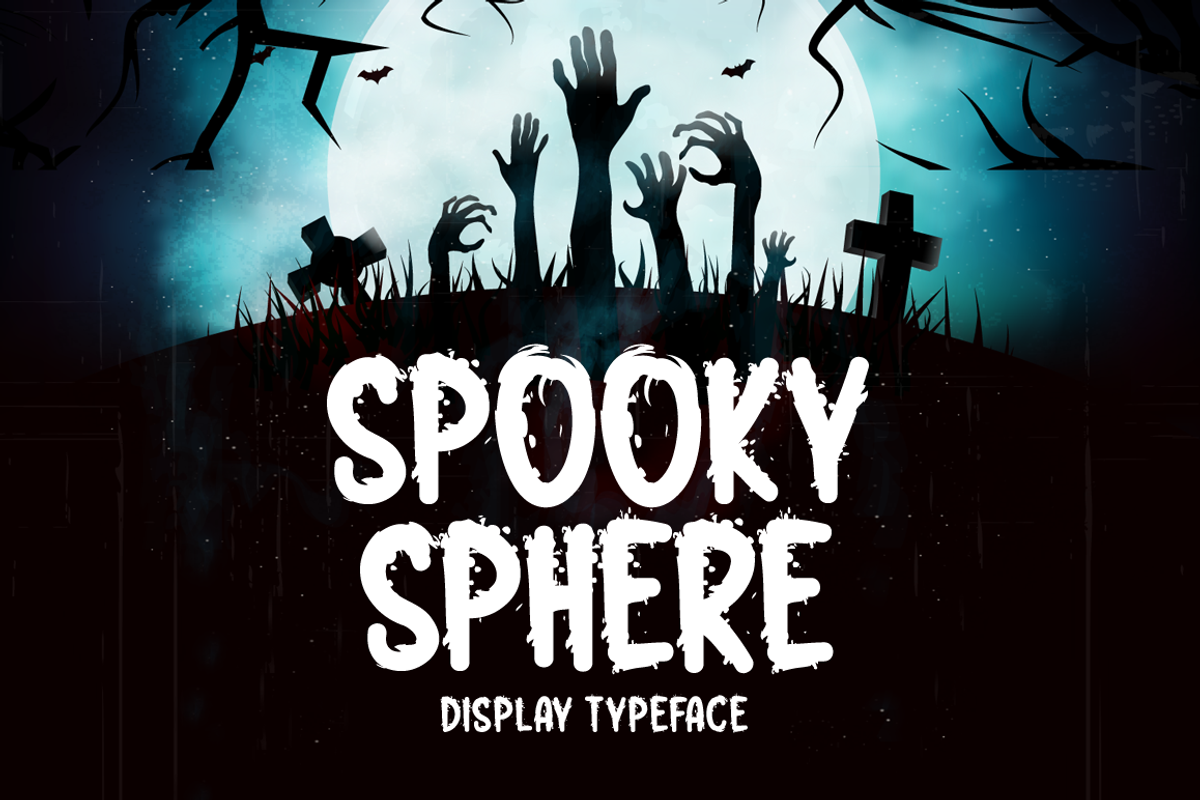
Spooky Sphere Typeface Free Download
The Spooky Sphere Typeface Free Download is a fun and playful font with a unique, round design that adds a whimsical touch to your projects. Perfect for Halloween-themed designs, quirky logos, posters, and party invitations, this font brings a fun, spooky vibe to any project. Please note, for commercial use, a license must be purchased. You can download it for free for testing purposes.
With its rounded shapes and bold style, the Spooky Sphere Typeface Free Download is ideal for creating designs that need a playful, eye-catching touch. Whether you're designing for seasonal events, graphic art, or unique branding, this font adds personality and flair.
Get the Spooky Sphere Typeface Free Download today and add a fun, quirky edge to your designs with this unique typeface.